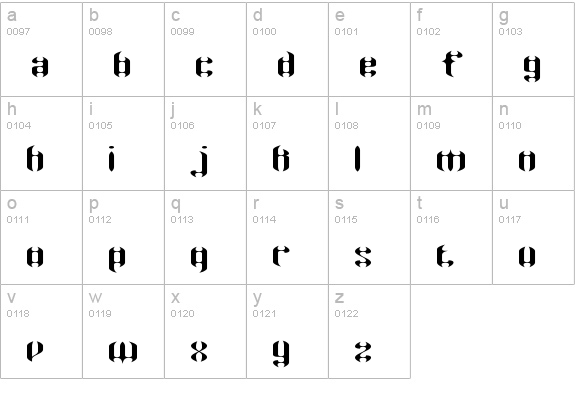
Wyvern Wings Wyde BRK Font Details
The Wyvern Wings Wyde BRK font is a striking and bold typeface that commands attention with its unique design and powerful presence. With its sharp angles and intricate details, this font exudes a sense of strength and sophistication. Not only does Wyvern Wings Wyde BRK make a bold statement, but it also offers versatility and readability, making it suitable for a wide range of design projects. Whether you're working on a logo, poster, or branding materials, this font will add a touch of elegance and flair to your work. Best of all, Wyvern Wings Wyde BRK is available for free download at FontsMarket.com. This means you can easily access and use this stunning font in your projects without having to worry about any additional costs. Don't miss out on the opportunity to elevate your designs with the Wyvern Wings Wyde BRK font today!